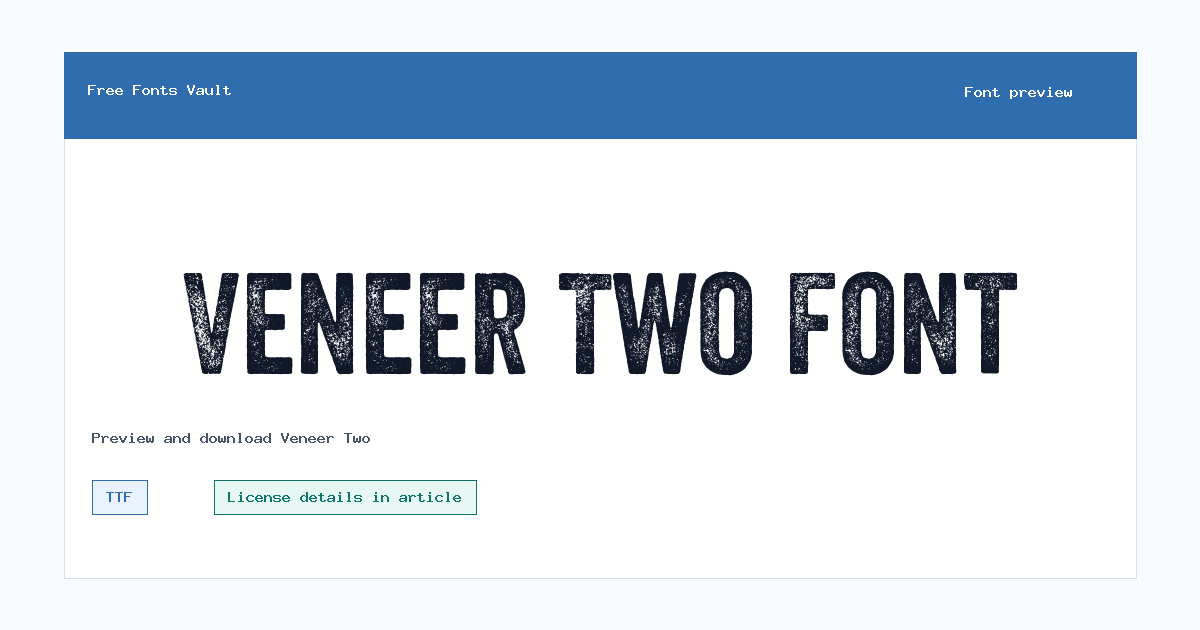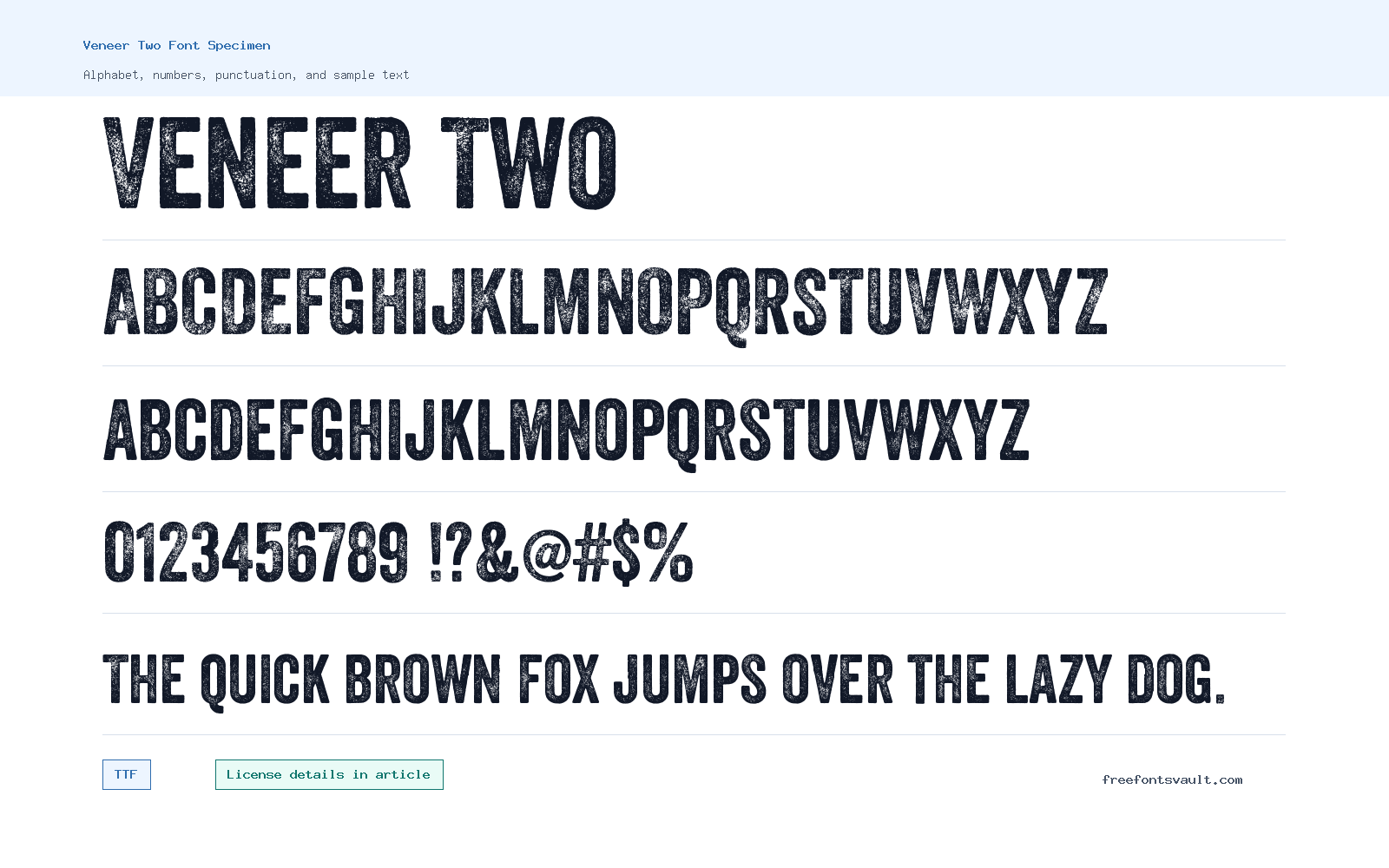
Veneer Two
- Designer Ryan Martinson
- Foundry Ryan Martinson
Veneer Two is a display font with a strong, condensed look that works best when the text is short and meant to stand out.
About Veneer Two
Veneer Two is designed for bold display settings rather than long reading. Its narrow letter shapes and sturdy presence make it a practical choice for titles, posters, badges, labels, and other layouts where a compact headline needs visual weight.
Veneer Two is best treated as a display font for compact, high-impact typography. It can be useful for poster headings, vintage-inspired labels, badge-style graphics, packaging mockups, or social images where the type needs texture and weight.
Keep the surrounding design restrained so the lettering can do the work. Try it in all caps, title case, and with numbers if your project needs dates or prices. If the texture or weight starts to compete with the message, use Veneer Two for the main word and a plainer typeface for the details.
- Condensed display style suited to short, high-impact text
- Poster titles, badges, labels, and display graphics
- Short branding-style text, headers, and decorative typography tests
Veneer Two is credited to Ryan Martinson, with the designer website listed as Yellow Design Studio.
Keep text short and give the letters enough spacing and size to show their shape. If you use Veneer Two in a layout with longer information, combine it with a clean companion font for descriptions, buttons, or small text. Preview Veneer Two with the actual background color you plan to use. Textured or heavy display fonts can lose clarity on low-contrast backgrounds, especially in small thumbnails.
Is Veneer Two good for body text?
It is better for display use. Test it for headings, posters, badges, and short labels, but choose a more readable font for paragraphs.
Who designed Veneer Two?
The font is credited to Ryan Martinson.